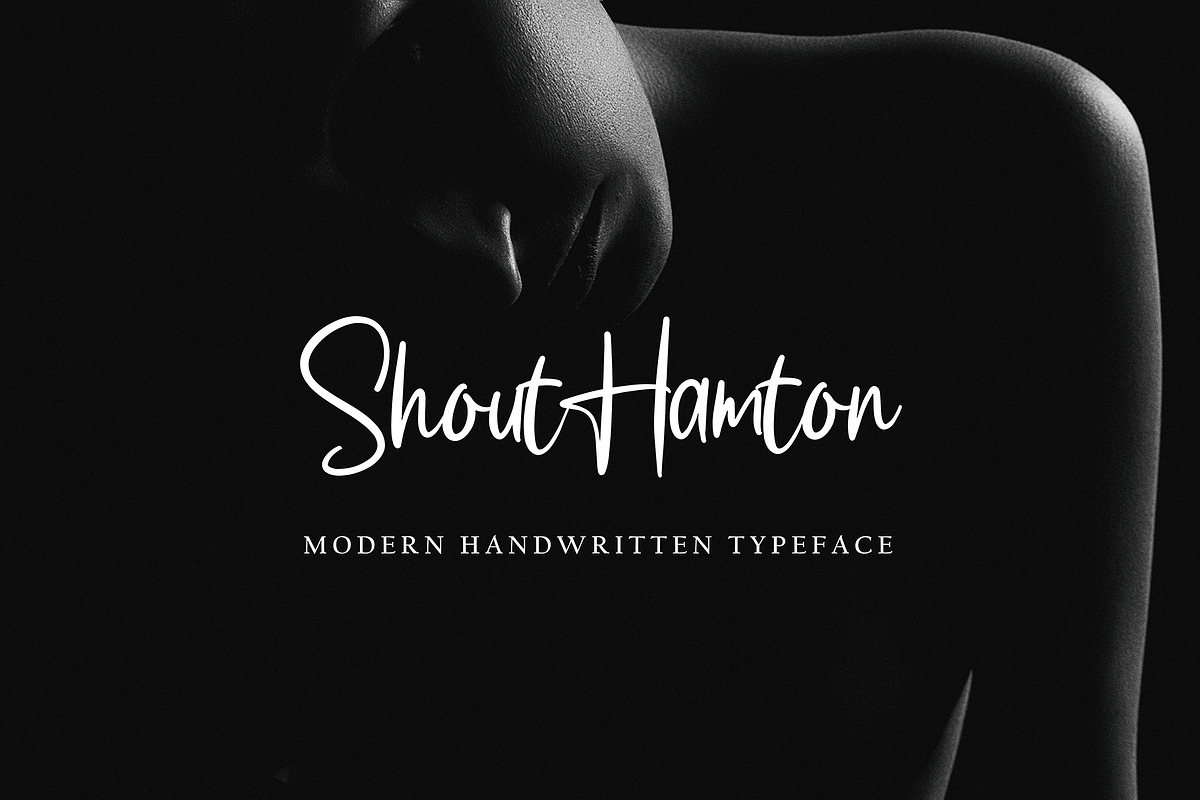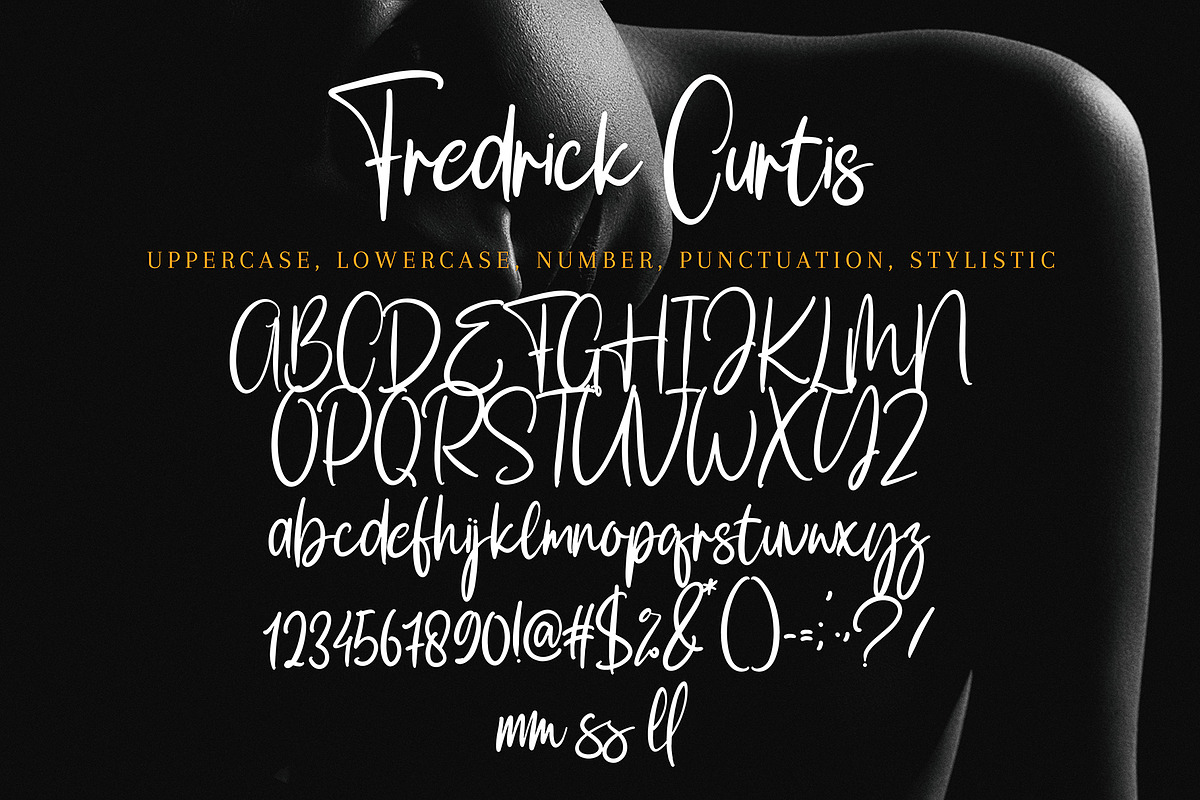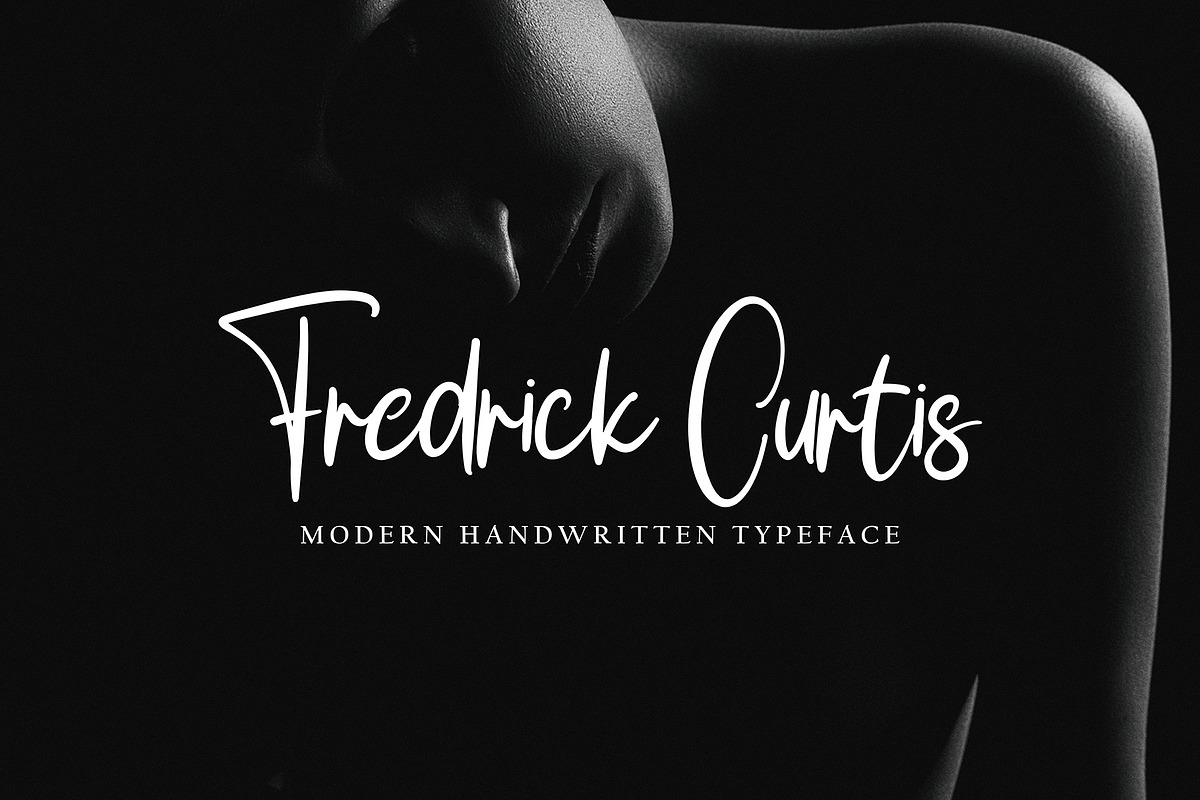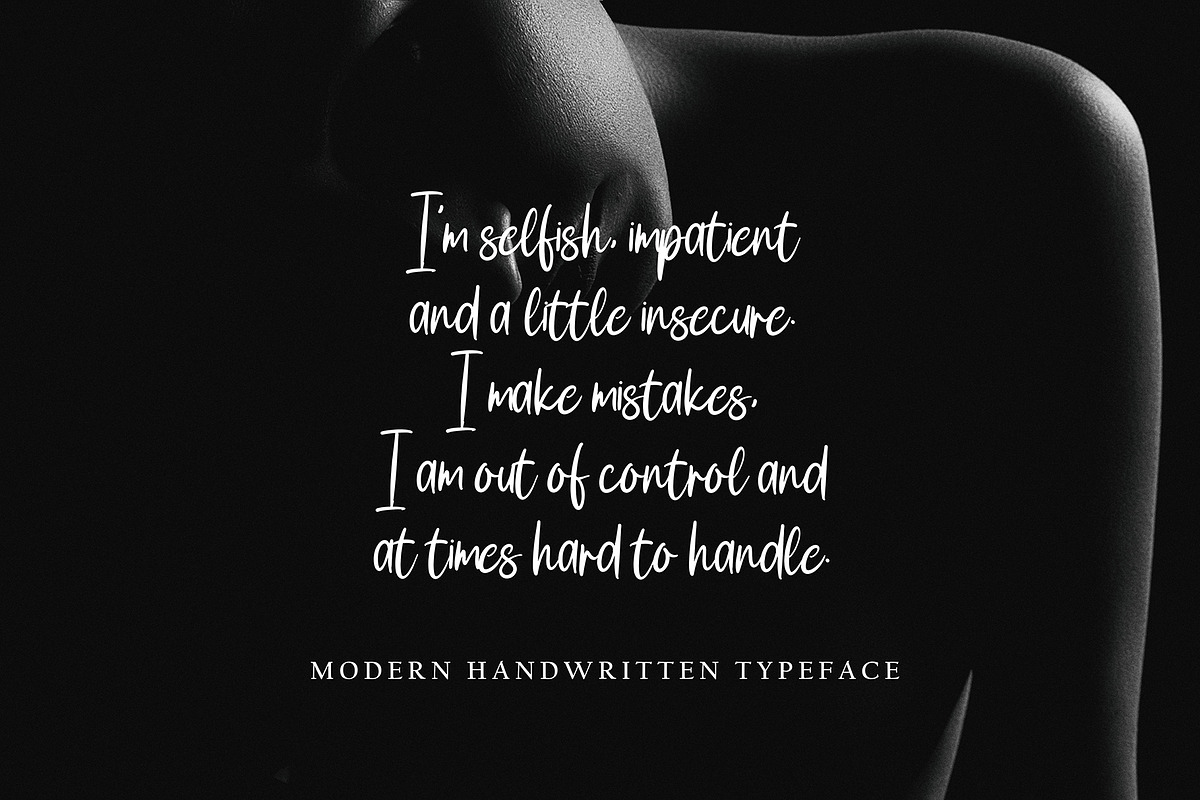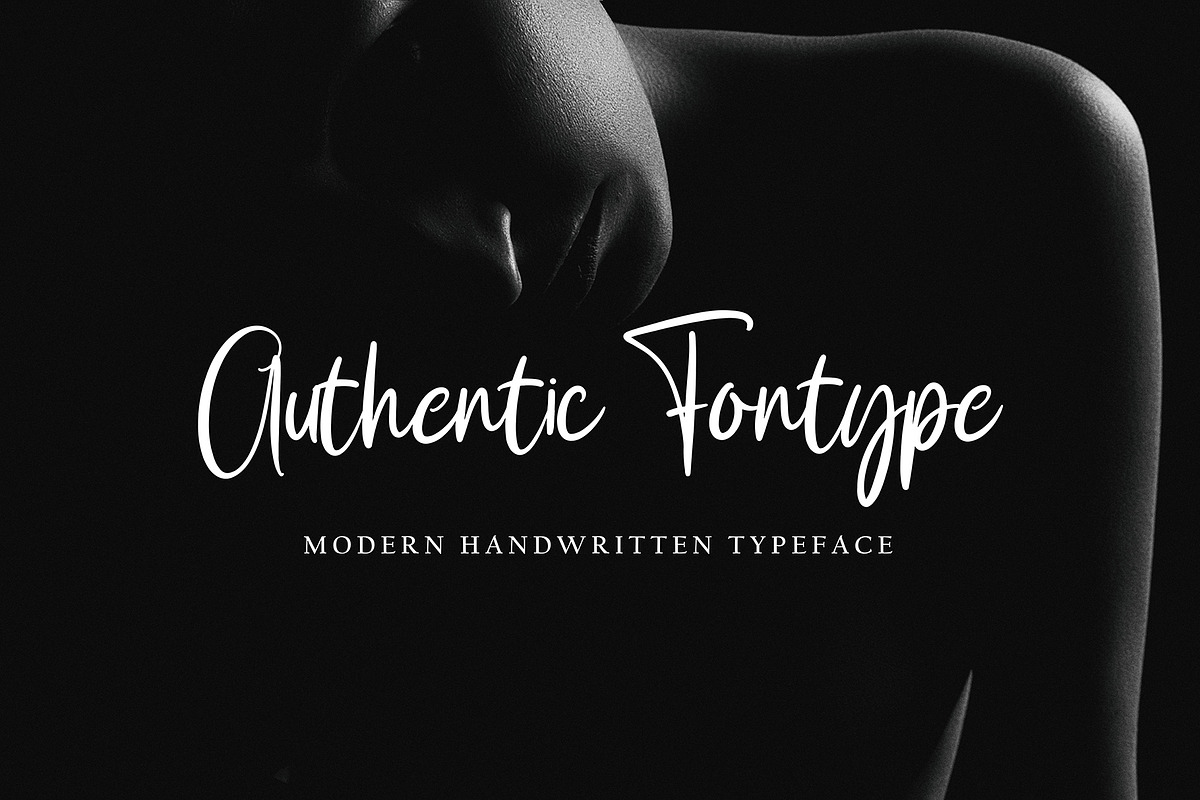
Fredrick Curtis
Fredrick Curtis with new style, this font will perfect for many different project ex: quotes, logo, blog header, poster, banding, letter, invitation, stationery, etc...